Bonez Designz
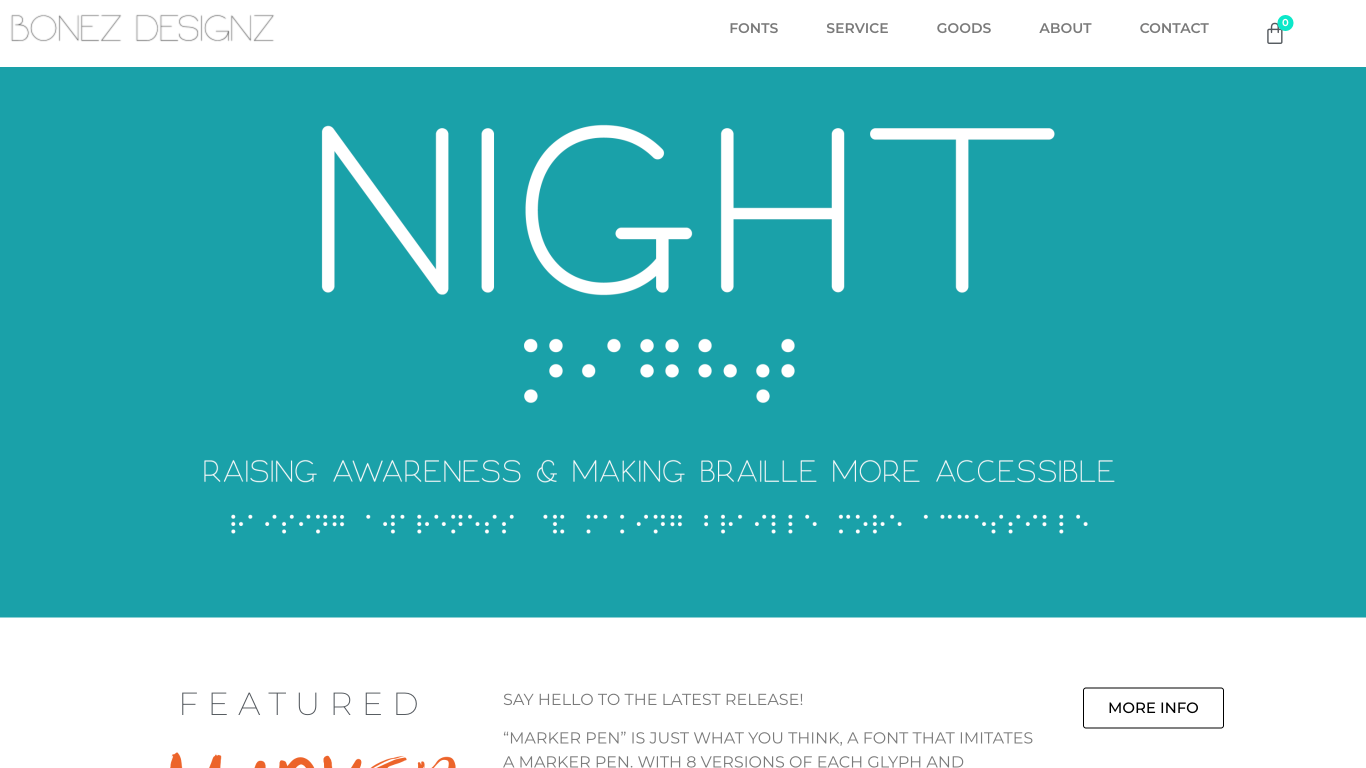
United Kingdom
2012
Bonez Designz is a one-woman independent type foundry based near Birmingham in the West Midlands, founded in 2012 by Fie Clarke. The foundry specializes in creating display typefaces full of character, blending traditional craftsmanship with modern design. Notable clients include Random House, Eleven Severn Music, and WWE. Their typefaces, such as 'Inky', a fun and versatile display typeface created by hand with ink and a brush, showcase their commitment to unique and expressive designs.